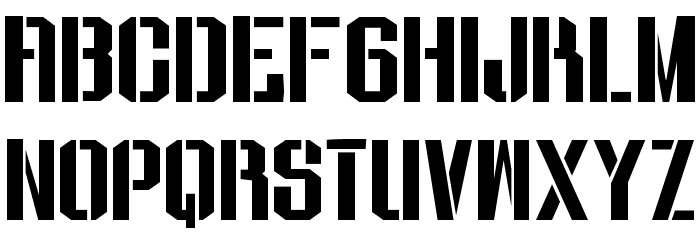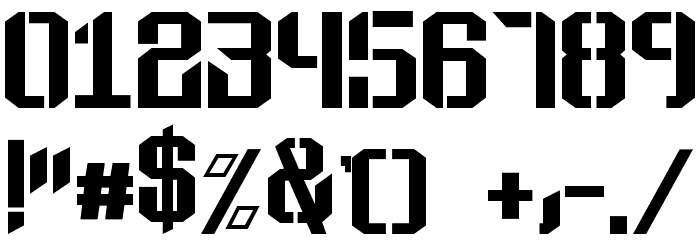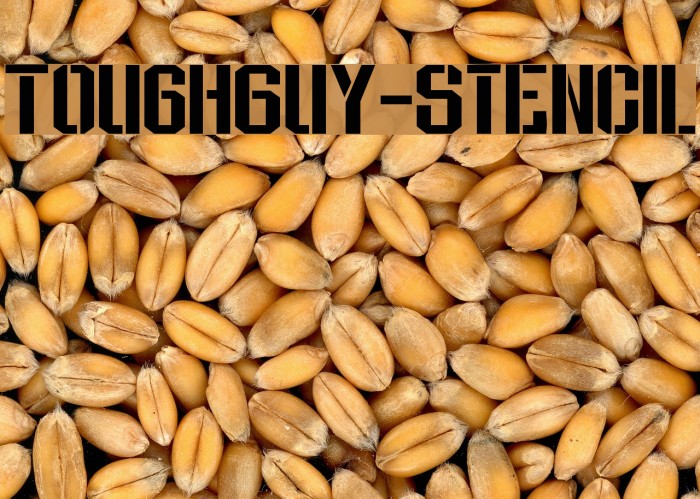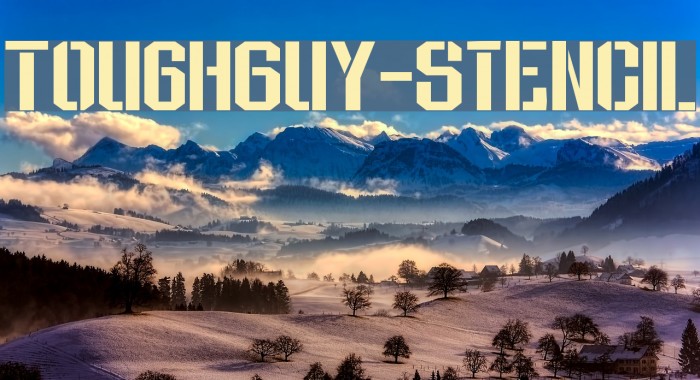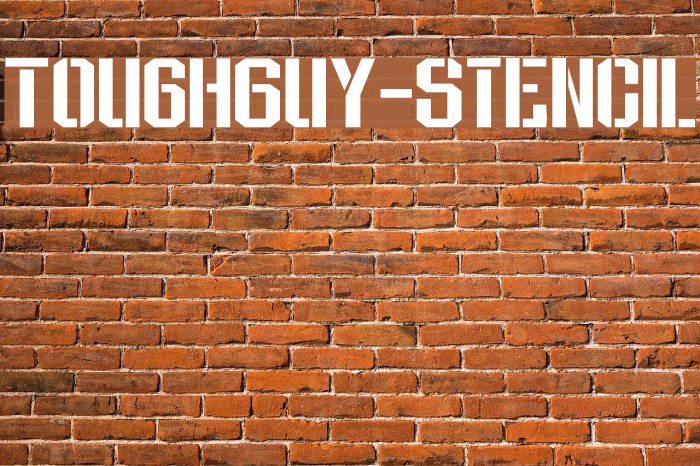
ToughGuy-Stencil Font
This font features a bold, stencil-inspired design with strong geometric shapes and sharp angles. The characters are constructed with a combination of solid and open spaces, creating a rugged and industrial look. The uppercase letters are particularly striking, with a uniform height and width that contribute to a cohesive appearance. The numerals and special characters maintain the same bold style, ensuring consistency across all elements. This font's unique design makes it ideal for projects that require a strong visual impact.
A bold, stencil-inspired font with geometric shapes and sharp angles.
- Proposed Projects: Ideal for military-themed designs, posters, branding, and signage requiring a strong, industrial look.
- Overall Style: Industrial, Rugged